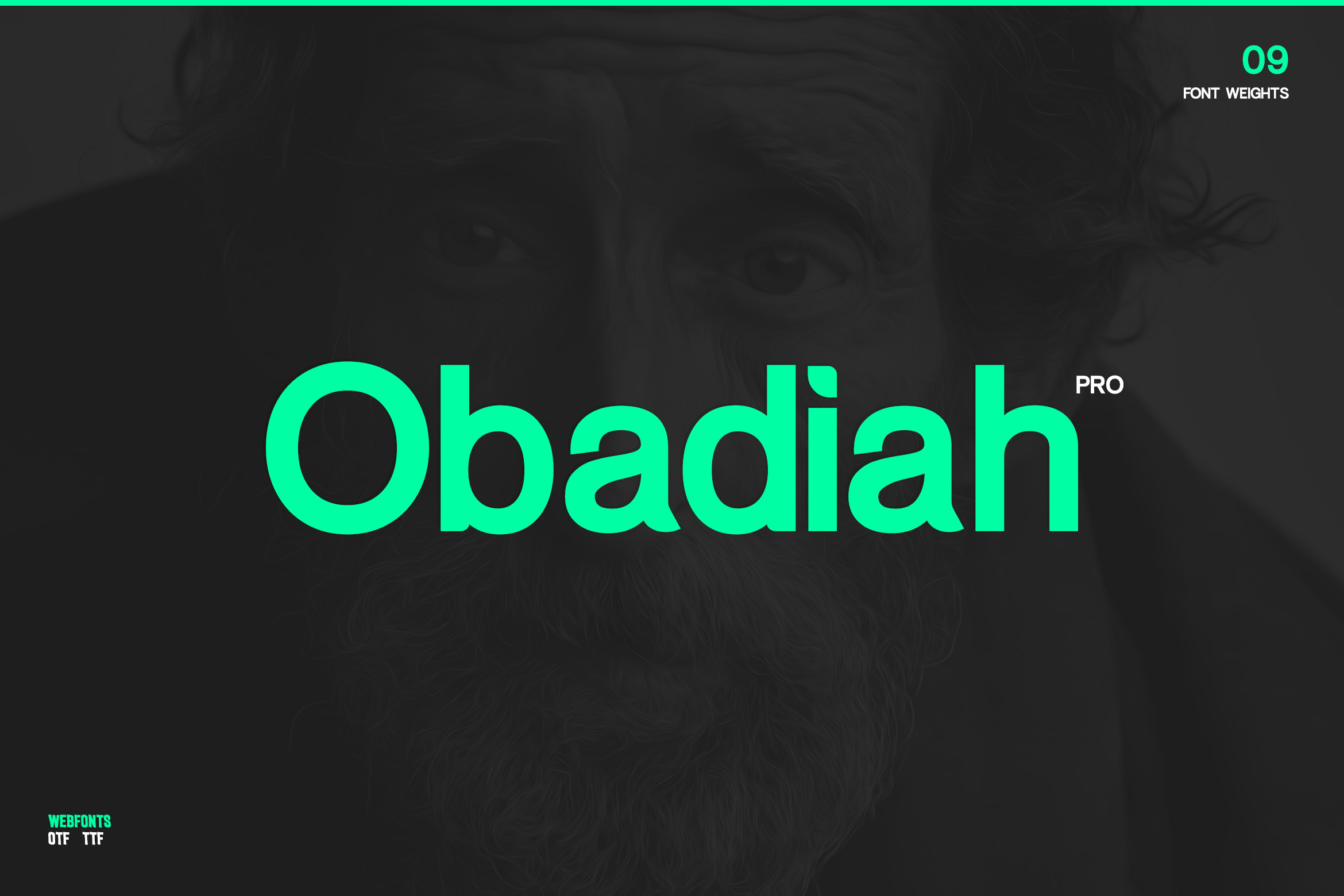
Obadiah pro - Modern Typeface
Obadiah pro Typeface
Obadiah pro is a modern Sans Serif typeface very much suitable for Film Posters, headlines, Block letter, Subheading, Logo Designs, Big Banners. Classic & Decorative Typography Web Designs.
- 09 Font Weights
- uppercase and lowercase letters
- multi-language support
- Alternatives
- numbers
- punctuation